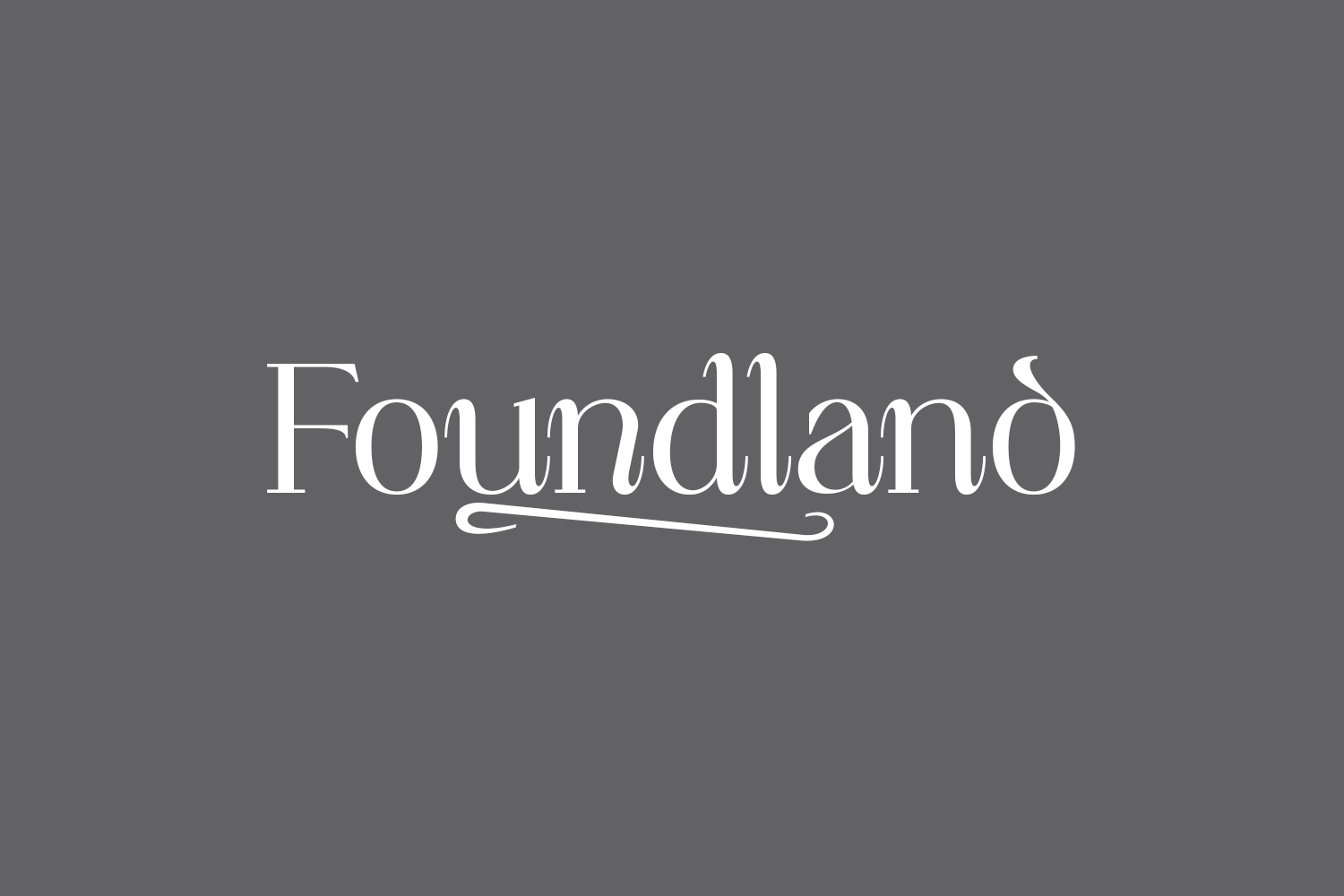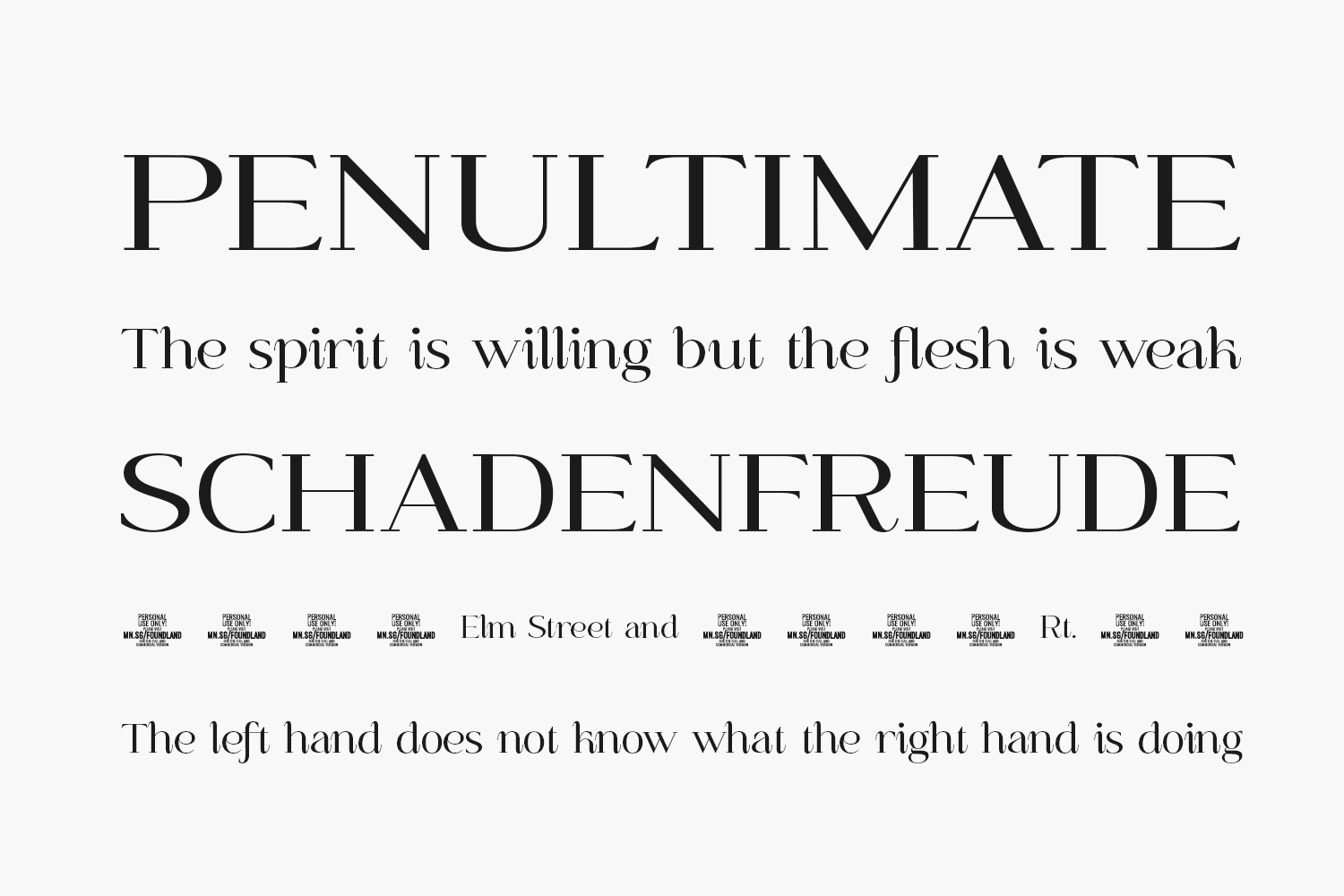
Foundland Free Font Family is a classic and elegant feel, with serifs that add a touch of sophistication to any design. Serif Foundry features clean lines and balanced weight, making it easy to read and use in a variety of contexts, such as headlines, body text, logos, and more. The font family includes regular and bold weights, both of which come in both regular and italic styles.